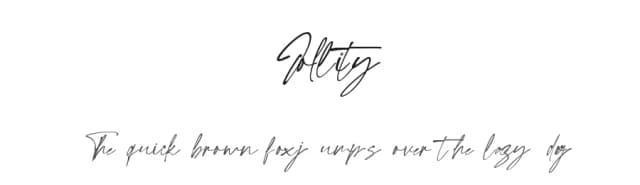
About Malvyew Script Font
Product Description :
Malvyew a new fresh modern script with a handmade calligraphy style, decorative characters and a dancing baseline! So beautiful on invitation like greeting cards, branding materials, business cards, quotes, posters, and more!!
Malvyew Script Specifications
| Glyph Count | 850 glyphs |
| Designer | Farida Kurniawan |
Malvyew Script Font